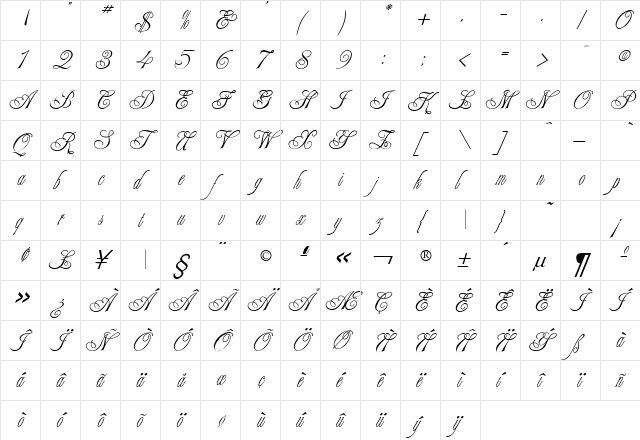
Shampanskoe script Font Preview
Shampanskoe script Shampanskoe script
Shampanskoe script Font Details
| Style | Shampanskoe script |
| Designer | Andreev Alexander |
Design Context for Shampanskoe script Typeface
Shampanskoe script brings a calligraphic fluidity to the page — its connecting strokes and expressive curves give it an unmistakably human quality.
Font Pairing: Combine Shampanskoe script with a simple geometric sans for maximum contrast — the tension between flowing curves and clean structure is a classic typographic pairing.
Pro Tip: Use Shampanskoe script for short runs of text — names, titles, or taglines. Extended body copy in script faces tires the eye quickly.